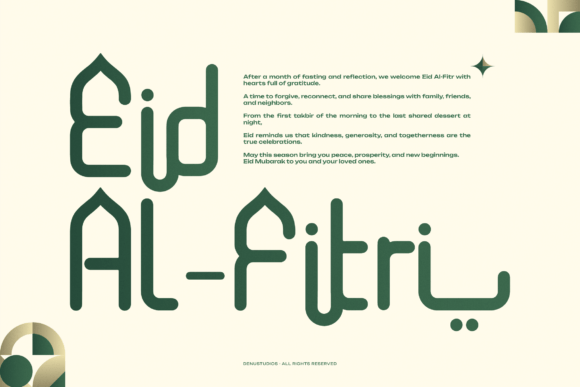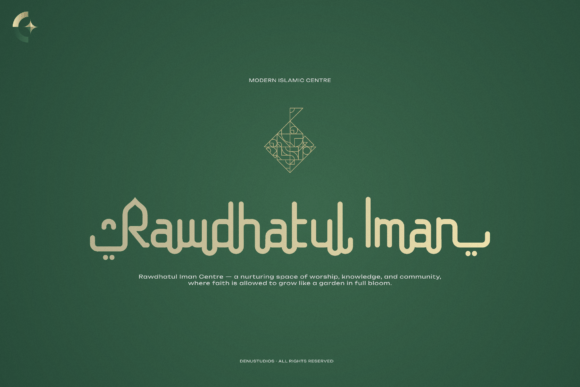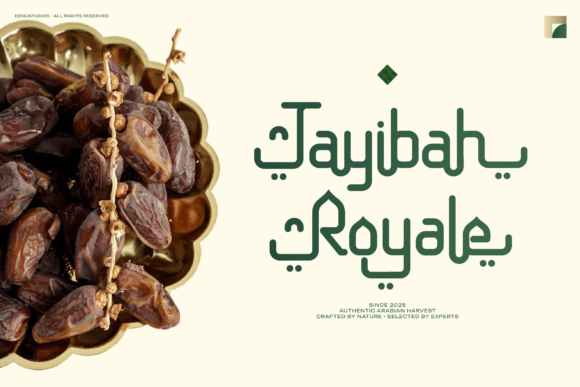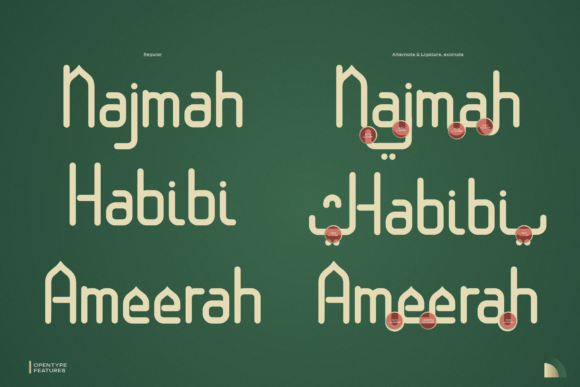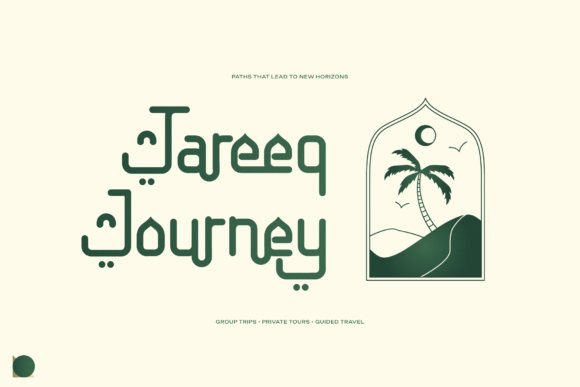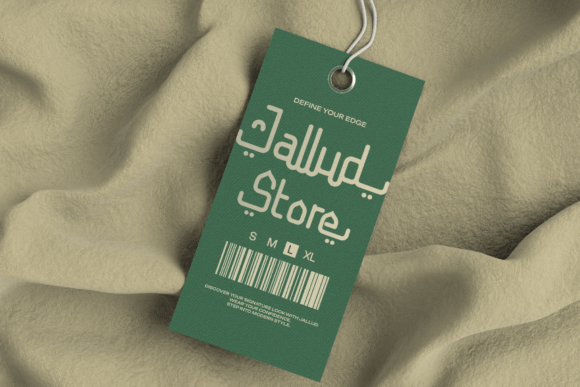
Introduction to Nouriyah Font
Nouriyah is a stunning and elegant modern Arabic typeface characterized by its smooth, monoline strokes and sophisticated geometric structure.
It successfully merges traditional Arabic script aesthetics with contemporary design principles, resulting in a clean, legible, and highly stylish font The generous spacing and decorative terminals (vowel points) give it a refined, artistic flair.